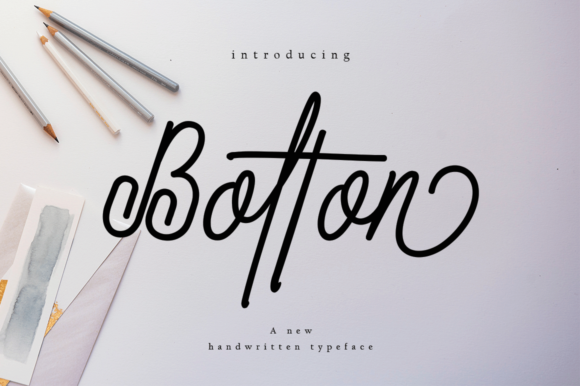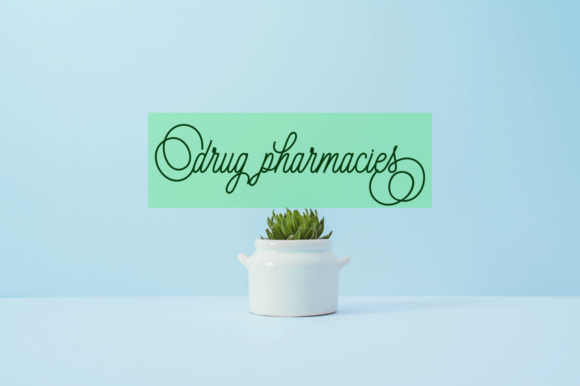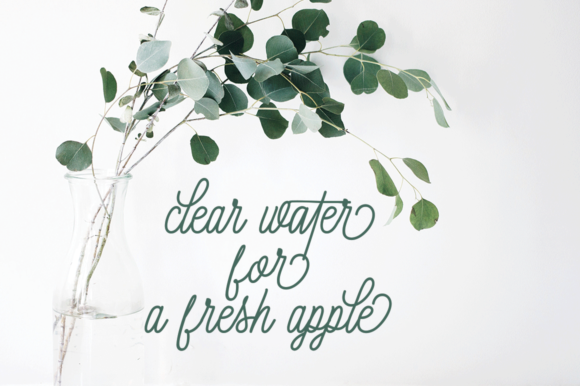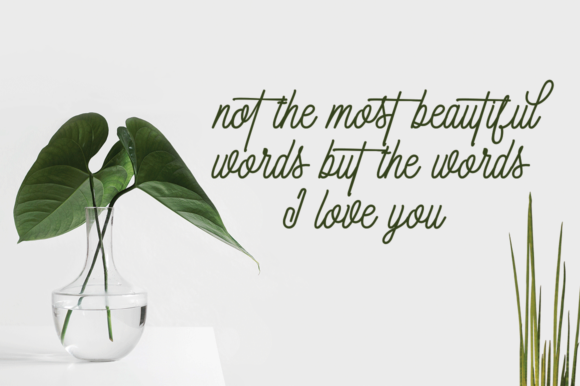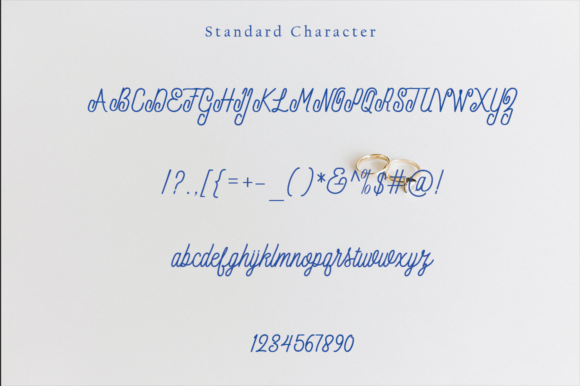
Bolton Font
About Bolton Font
Bolton is a stunnig script font that has a distinctive handwriting, making it perfect for modern designs that need a handcrafted appeal. This fon is a fresh monoline, so it doesn’t compete with your work.